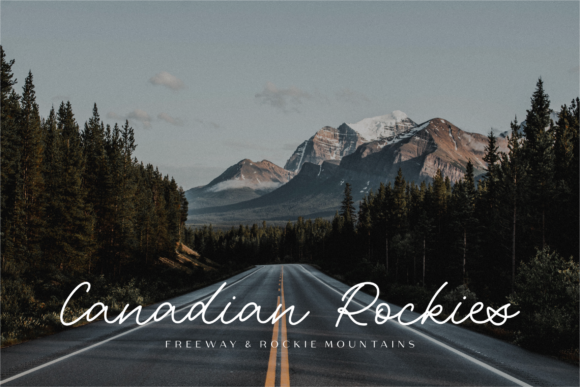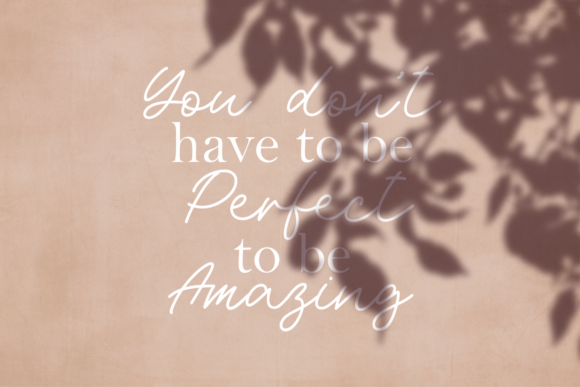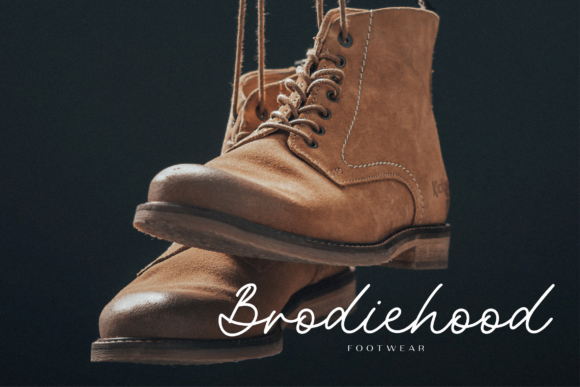
Introduction to Shortline Font
Shortline is a sweet and cursive handwritten font.
This gentle font will look gorgeous on a variety of design ideas It will add a joyful and romantic touch to each of your projects.
Why Choose Shortline Font?
Shortline Font offers exceptional quality and versatility, making it a valuable addition to your design toolkit. Whether you’re creating for personal projects or commercial use, Shortline Font delivers professional results.